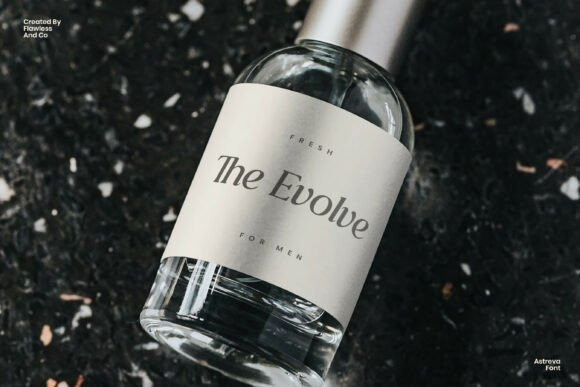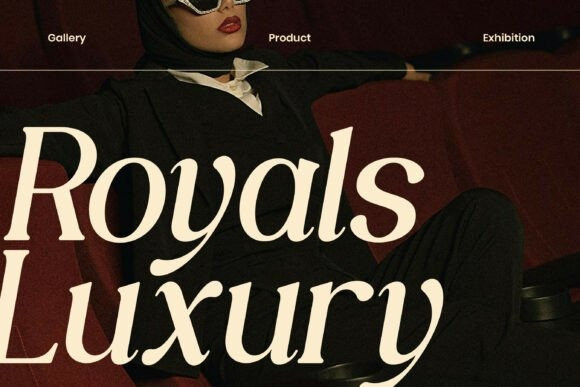
Astreva Font
Astreva Font is a luxury modern serif font that blends timeless elegance with a contemporary aesthetic. Featuring graceful curves, refined serif details, and stylish italic forms, Astreva delivers a sophisticated visual tone that feels premium and exclusive.